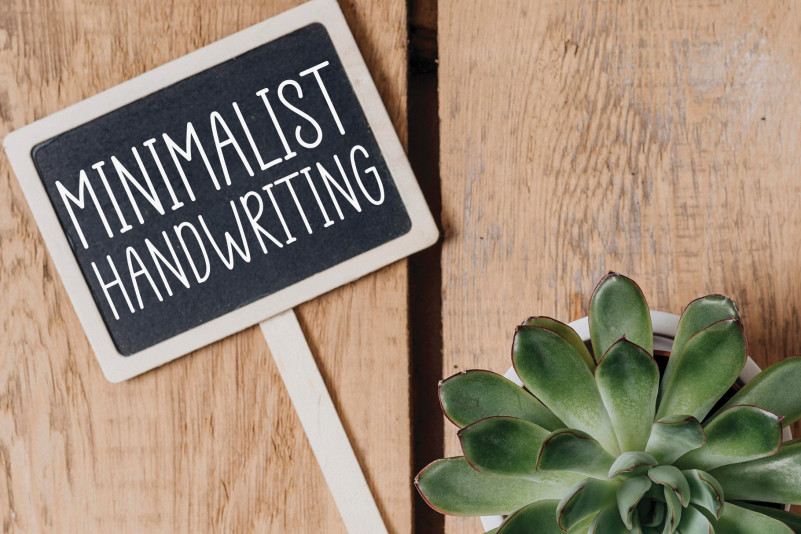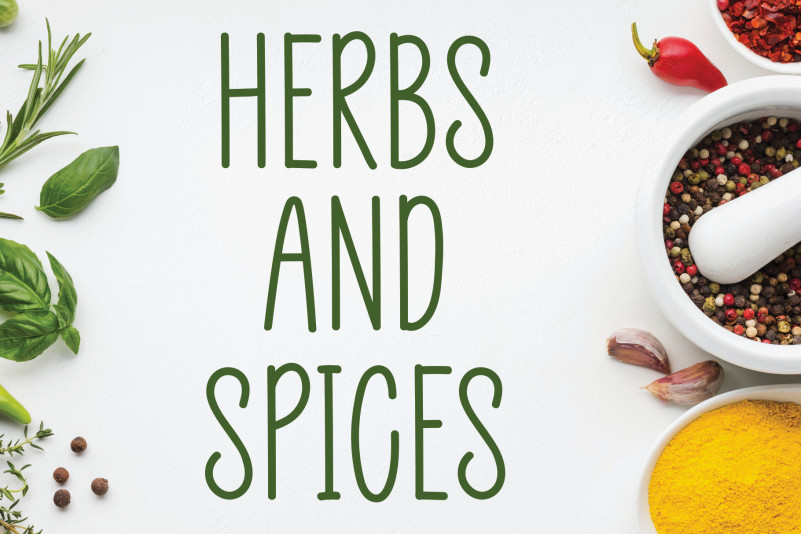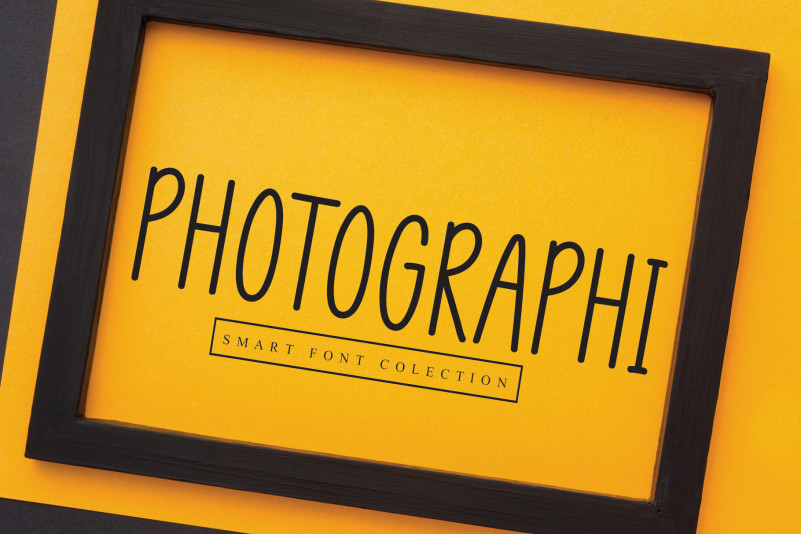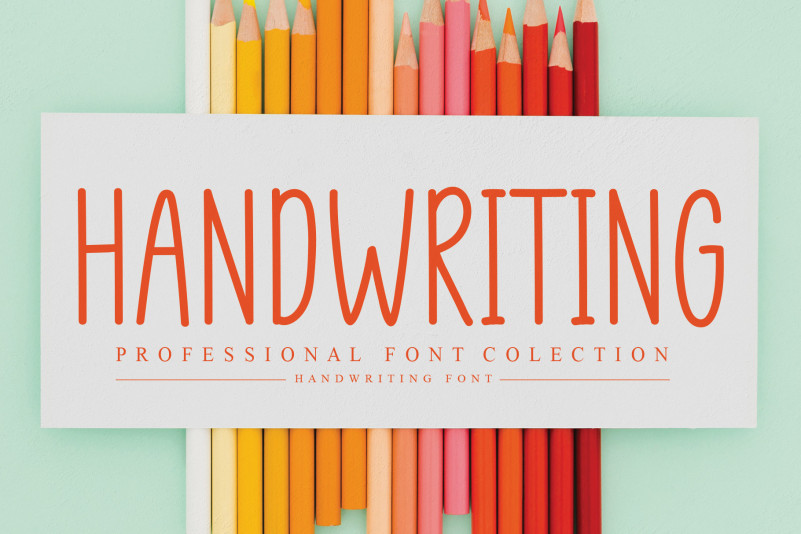
Cottage Designer Handwritten Font
Cottage Designer Handwritten Font is an incredibly neat and simple handwritten font. Clean, tall and thin, this font will be ideal for any formal and informal design that you wish to create.